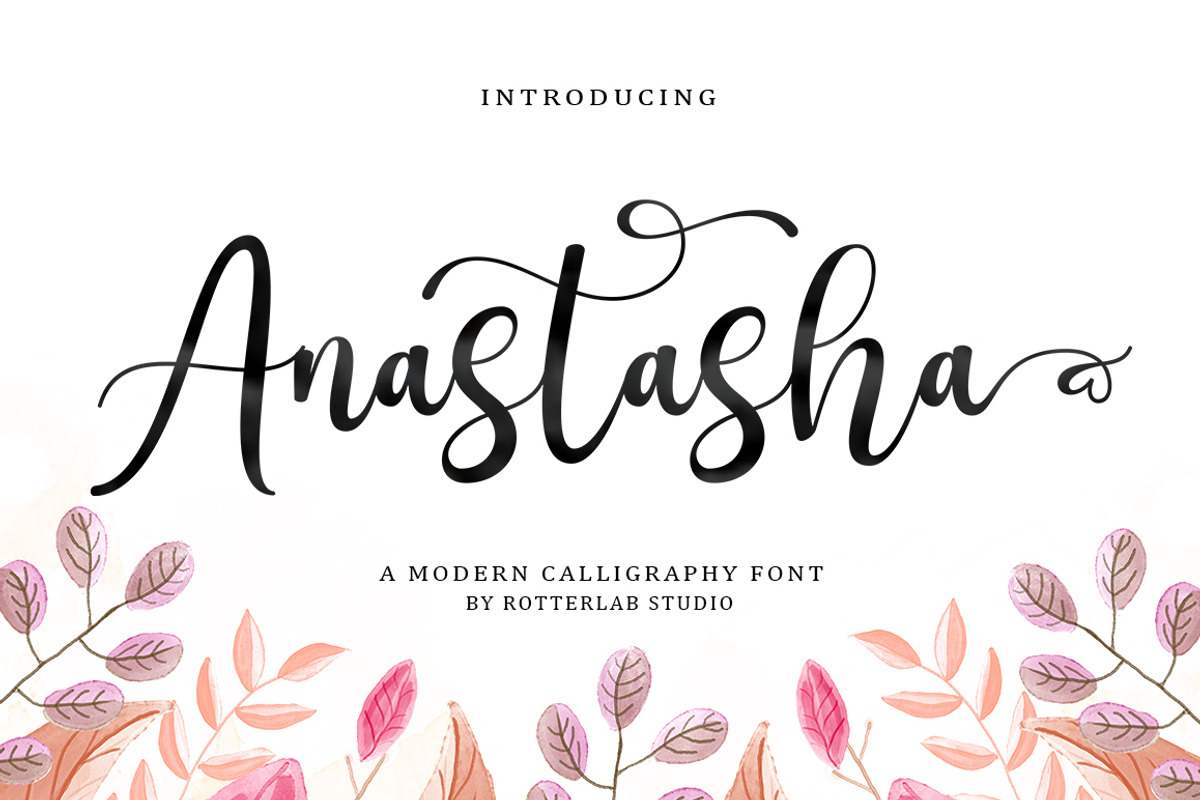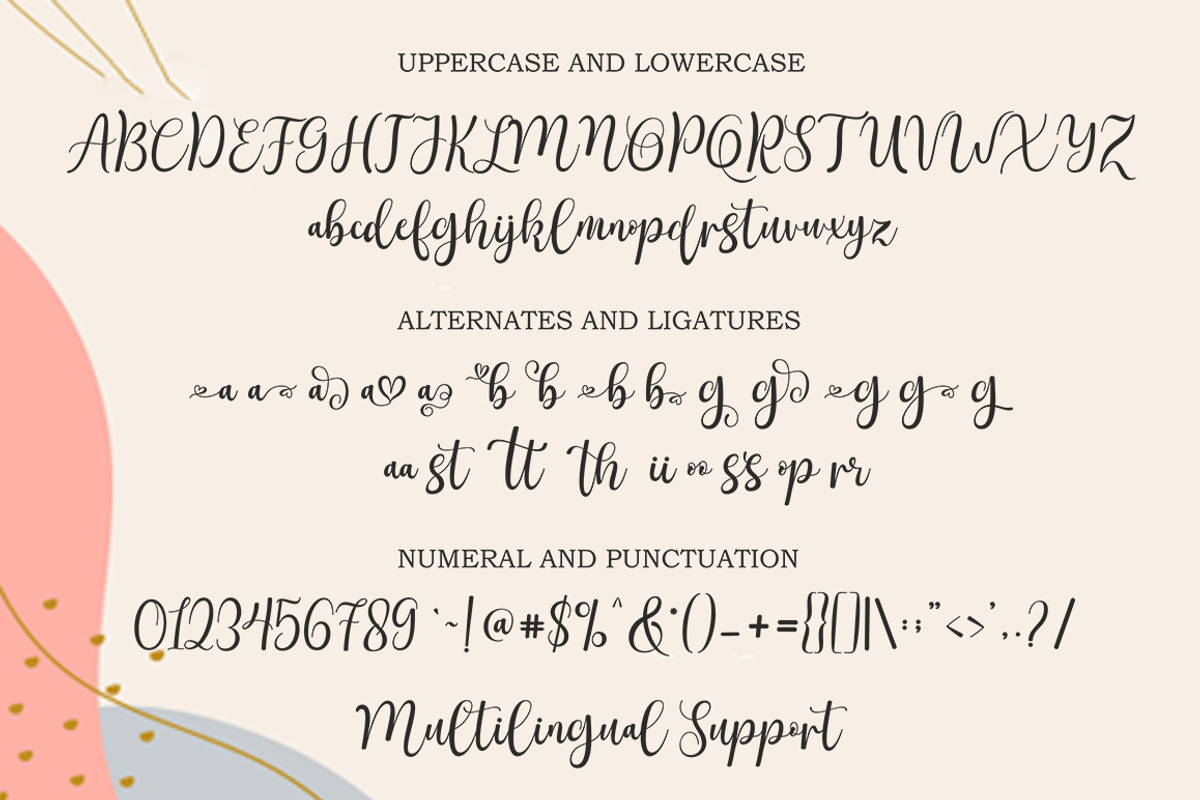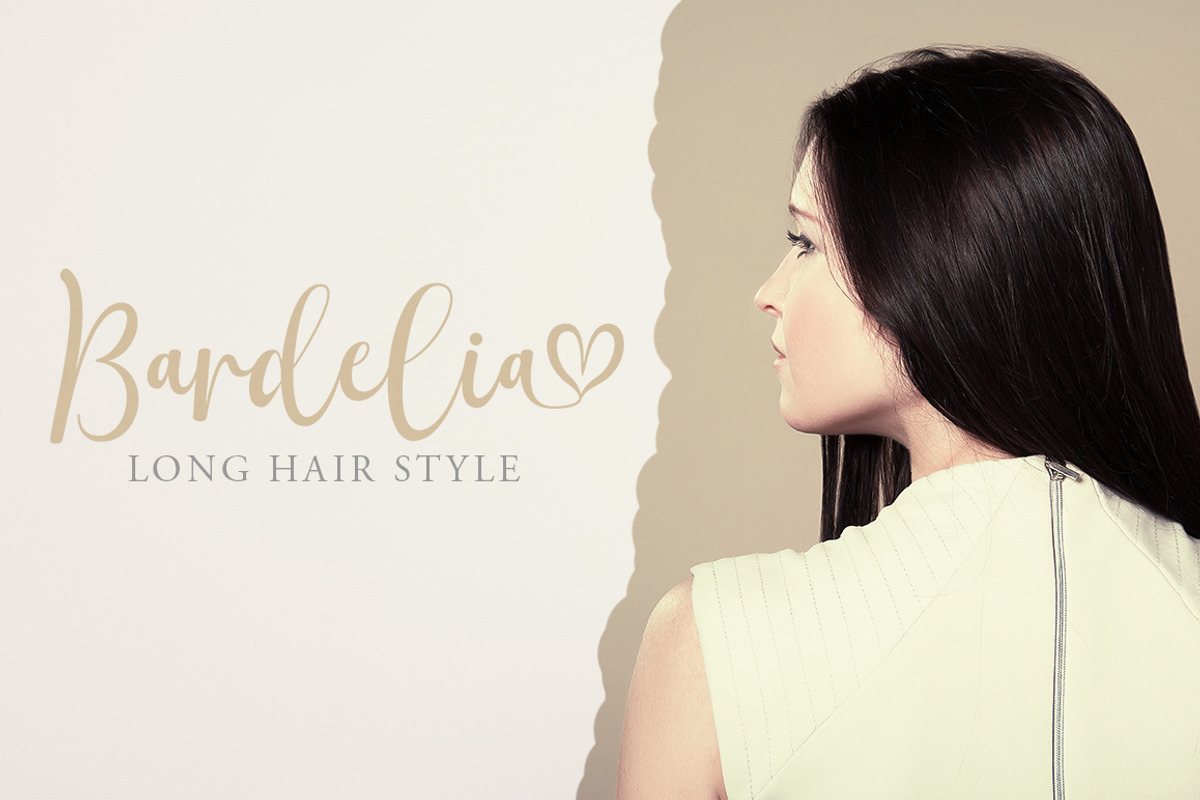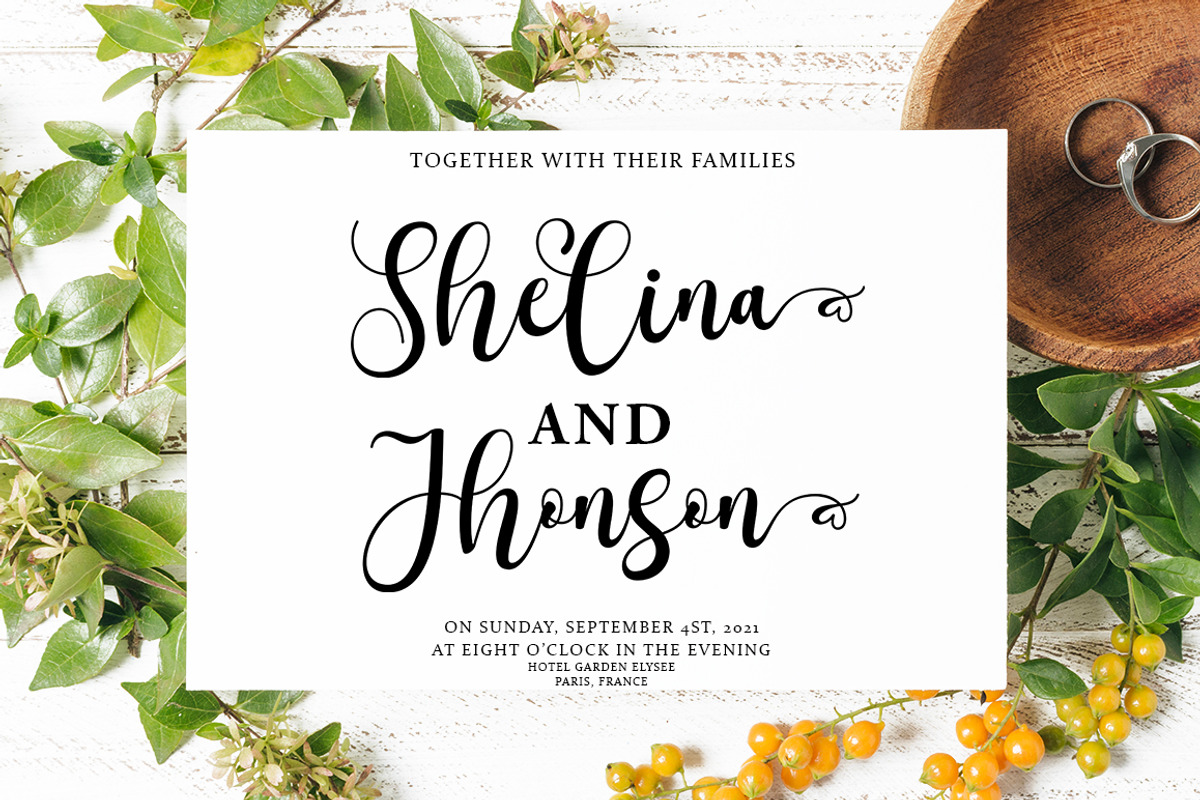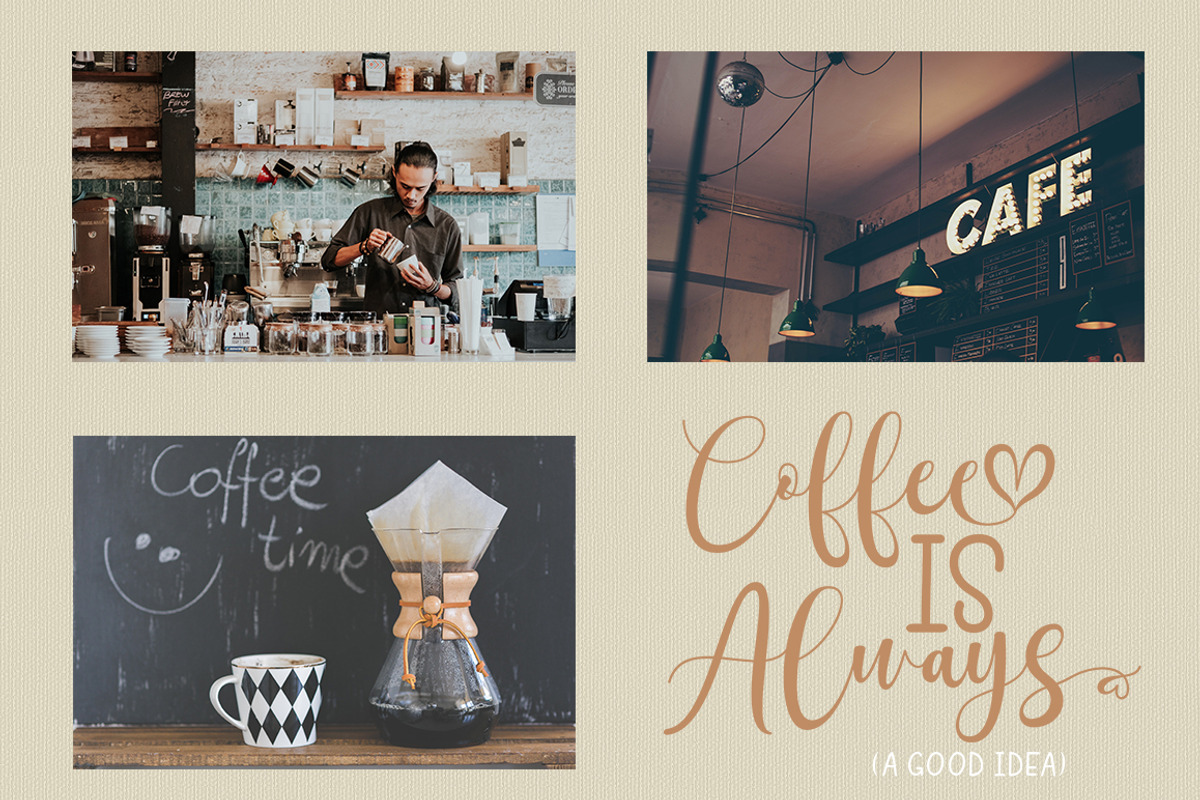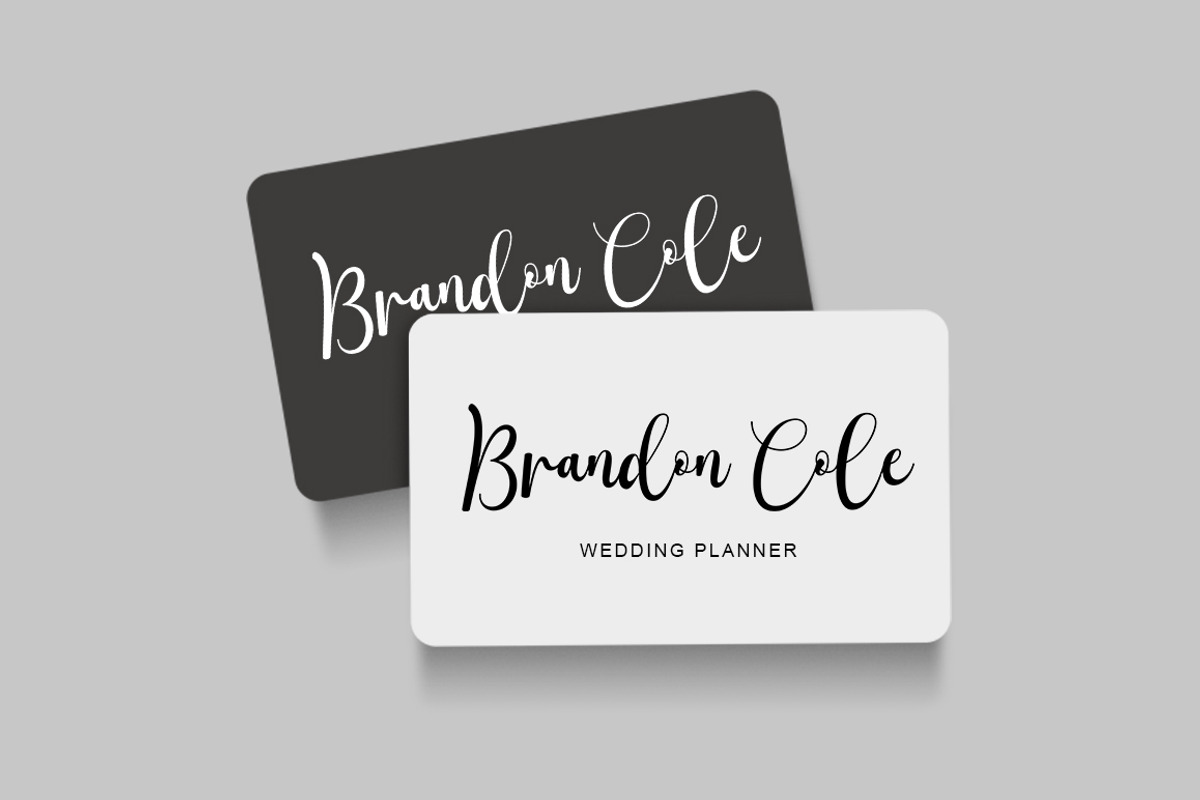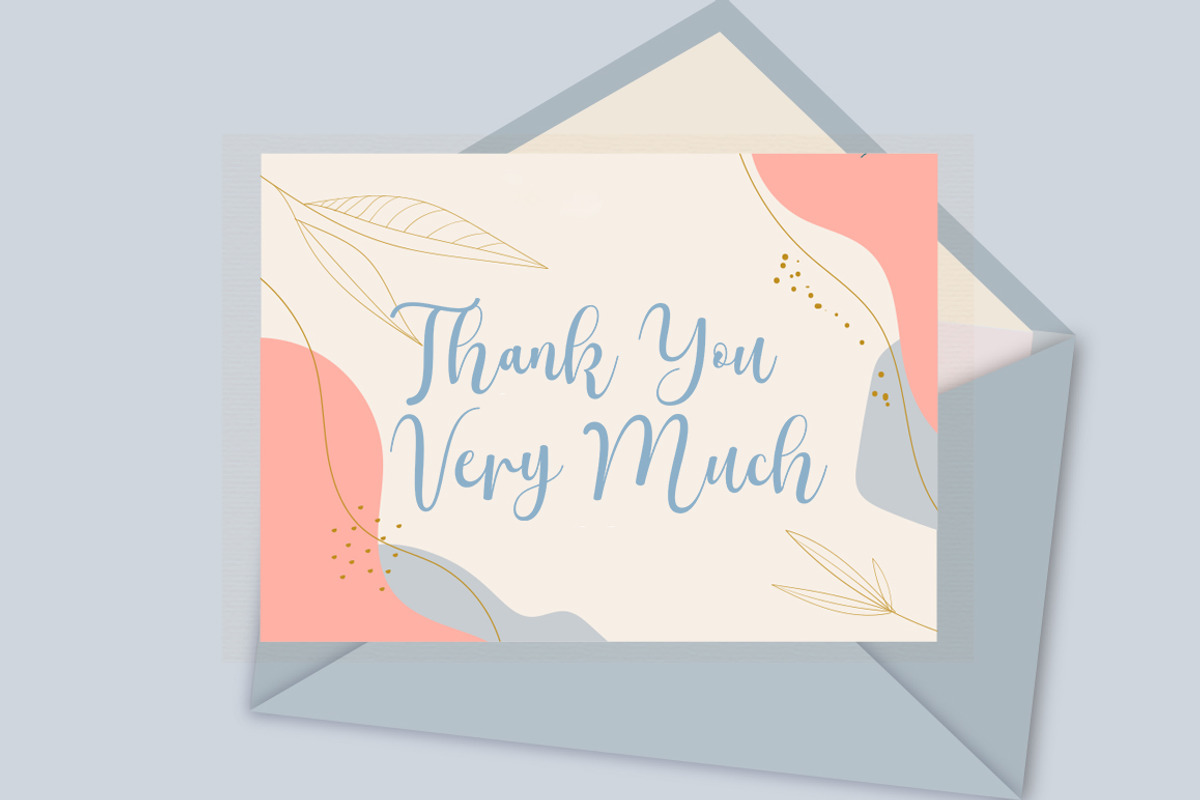
Anastasha Script
Anastasha Script is a calligraphic script font that comes with exquisite character changes, a kind of classic decorative copper script with a modern twist, designed with high detail for an elegant style.
Anastasha Script is interesting because it is smooth, clean, feminine, sensual, glamorous, simple and very easy to read, because there are many fancy letter joints. I also offer a number of decent stylistic alternatives for multiple letters. Classic styles are very suitable to be applied in various formal forms such as invitations, labels, restaurant menus, logos, fashion, make up, stationery, novels, magazines, books, greeting / wedding cards, packaging, labels or all kinds of advertising purposes.